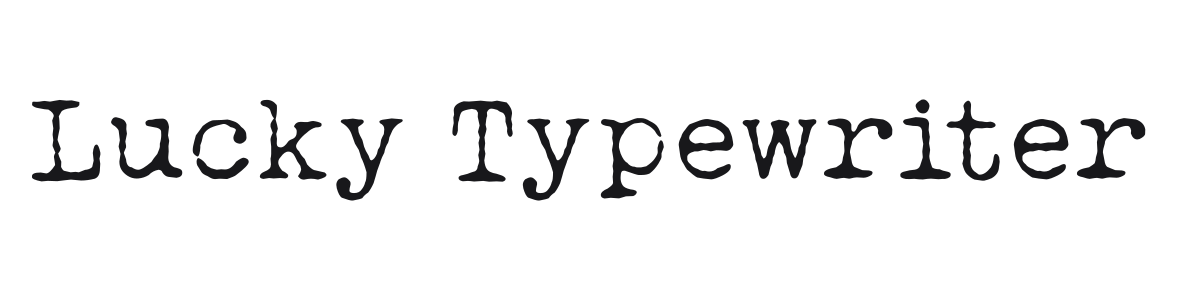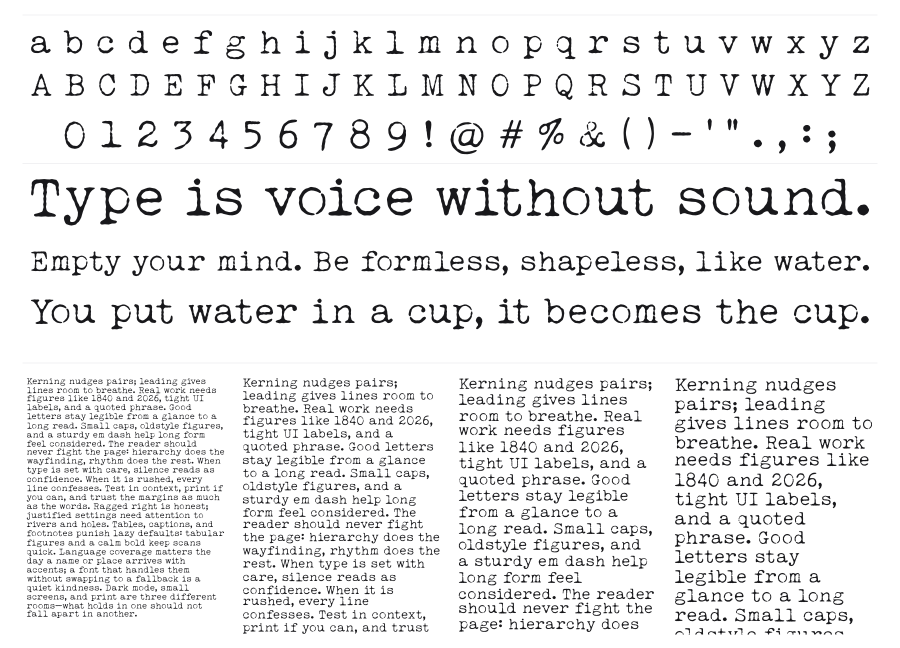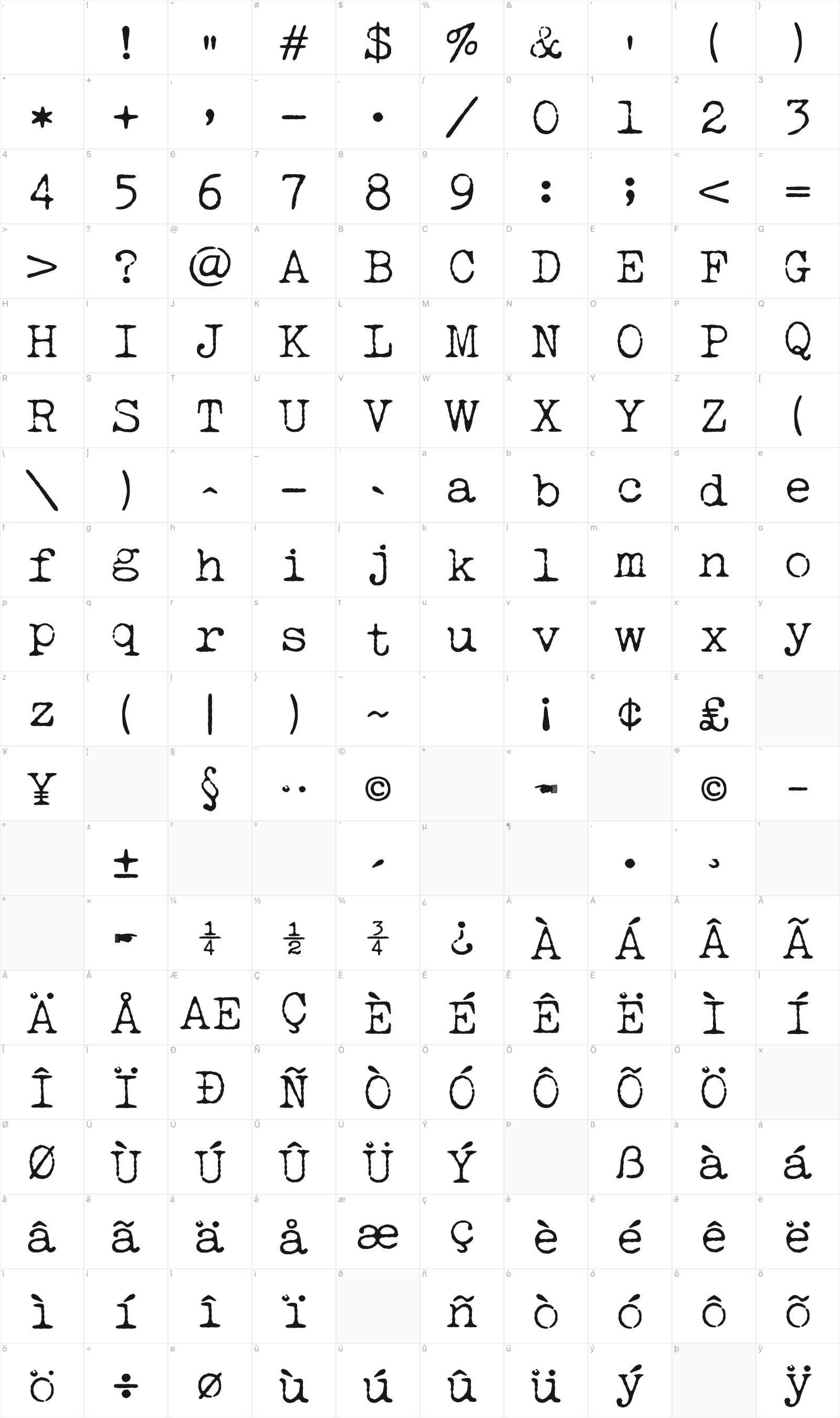
Lucky Typewriter
Lucky Typewriter is a distressed typewriter font by Lukas Krakora with convincingly worn ink and uneven mechanical character. The roughness feels earned rather than decorative, giving it a grittier edge than cleaner typewriter revivals. Strong choice for vintage editorial work, retro branding, and anything that needs a handmade, analogue feel.